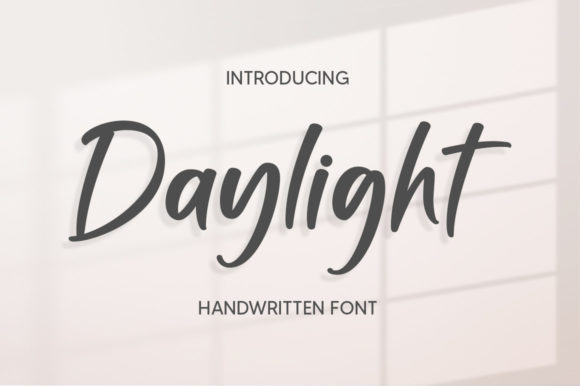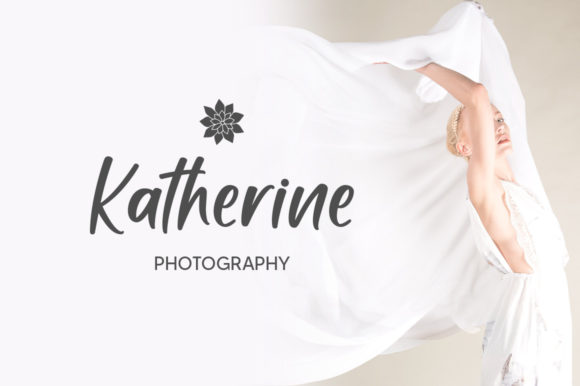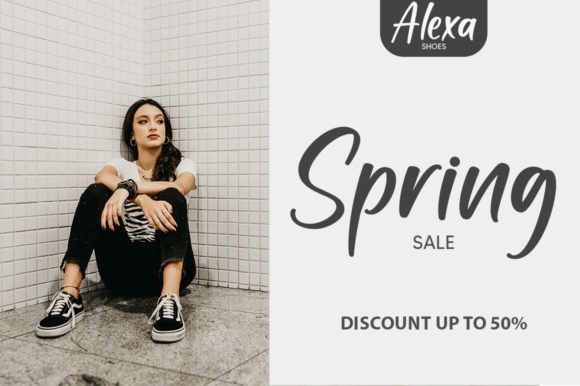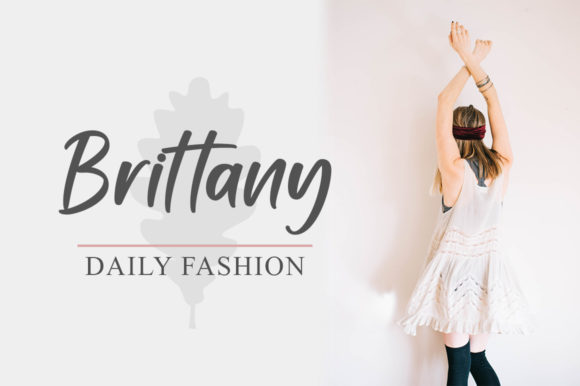
About Daylight Font
“Daylight” is a delicate and simple-lettered handwritten font that is perfectly suited for creating chalkboard quotes and teaching materials. This font’s authentic appearance adds a personal and realistic touch to your designs, making them feel genuine and relatable.
The font’s delicate and simple-lettered handwritten style exudes authenticity and approachability. Whether you’re working on chalkboard-inspired projects, educational materials, quotes, or any other design that requires a personal touch, “Daylight” can enhance your work with its genuine and down-to-earth appearance.
The font’s ability to bring an authentic and realistic feel to your designs makes it well-suited for a variety of creative projects. From designing teaching resources to crafting charming quotes, the font can elevate your designs with its distinct and relatable charm.
In essence, “Daylight” is more than just a font—it’s a creative resource designed to elevate your design projects. Its delicate and simple-lettered handwritten style, along with its authentic appearance, make it a valuable tool for designers striving to create designs that are visually appealing, genuine, and engaging, leaving a lasting impression.